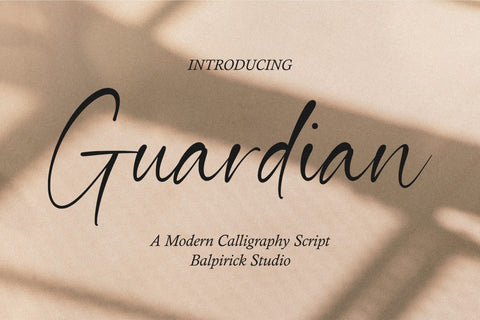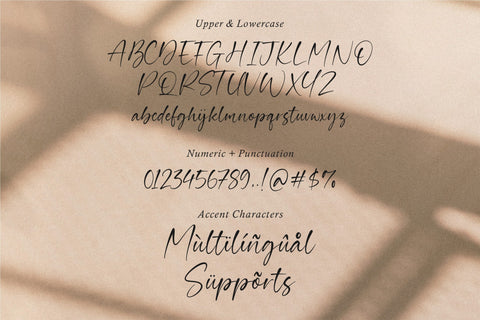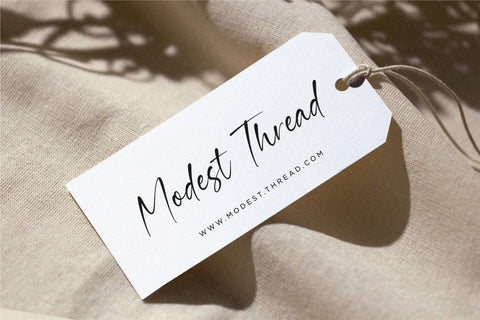
Guardian A Modern Calligraphy Script Font
Introducing "Guardian": A Modern Calligraphy Script Font
Elevate your design projects with the enchanting beauty of "Guardian," a captivating modern calligraphy script font that exudes elegance and style. With its sweeping and fluid strokes, "Guardian" adds a touch of sophistication and grace to any creative endeavor.
Also multilingual support